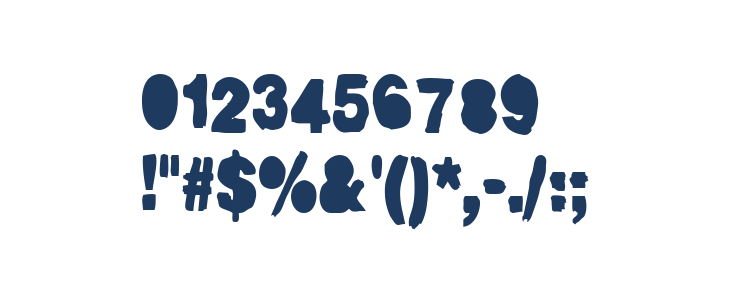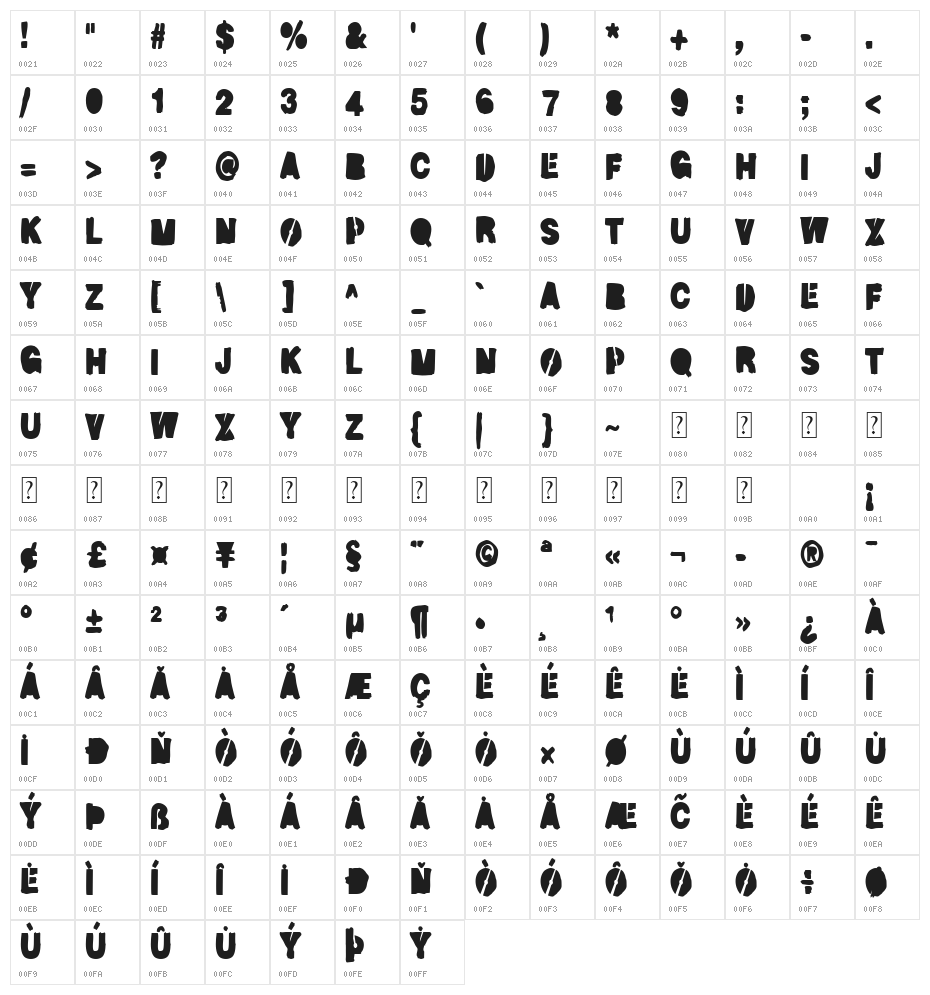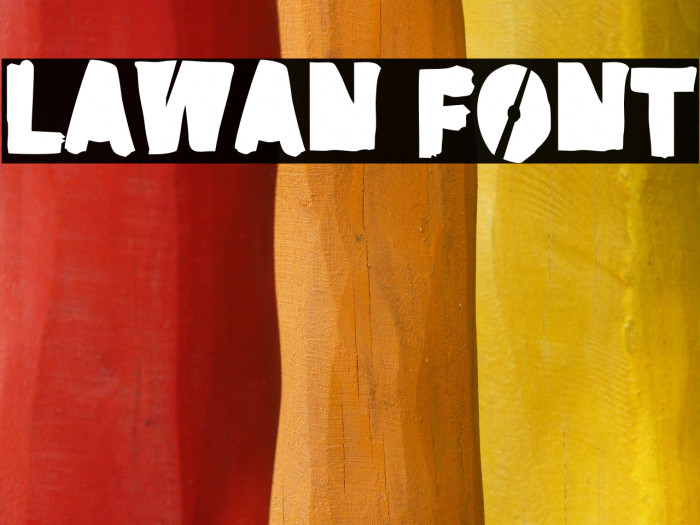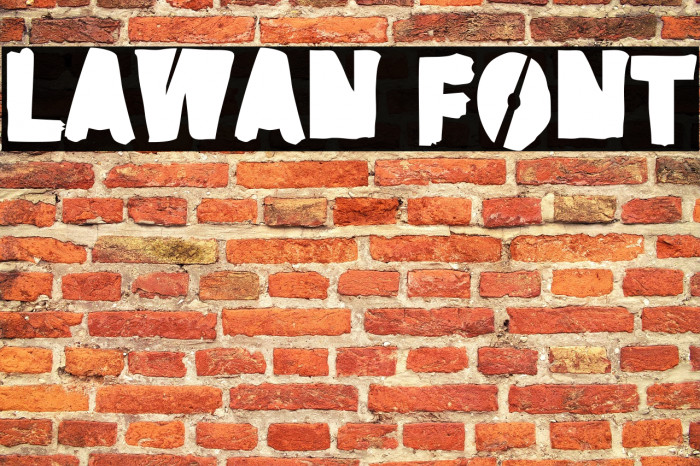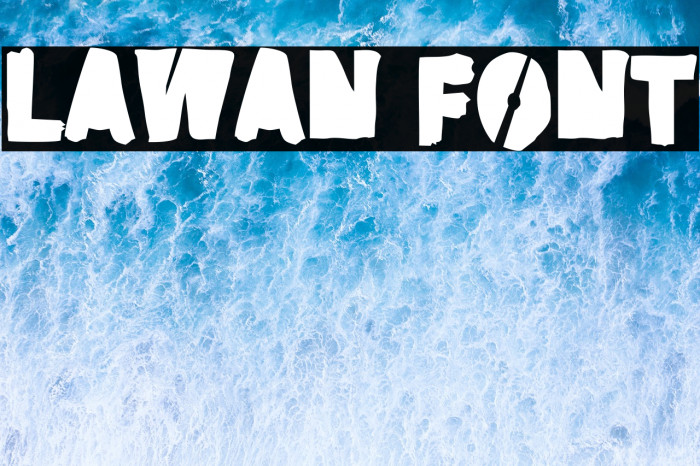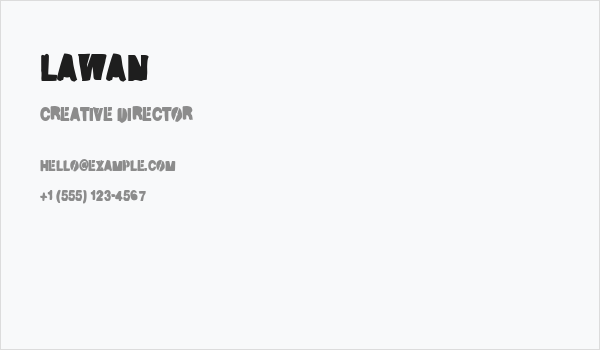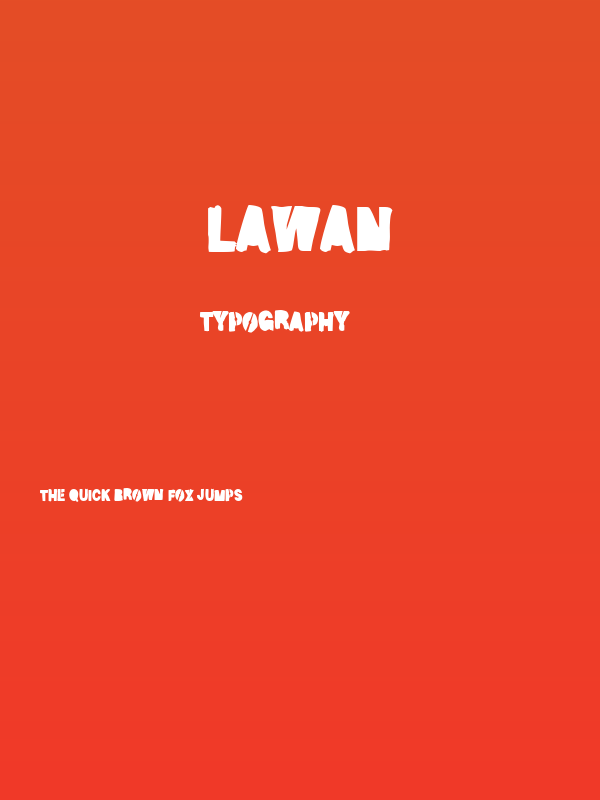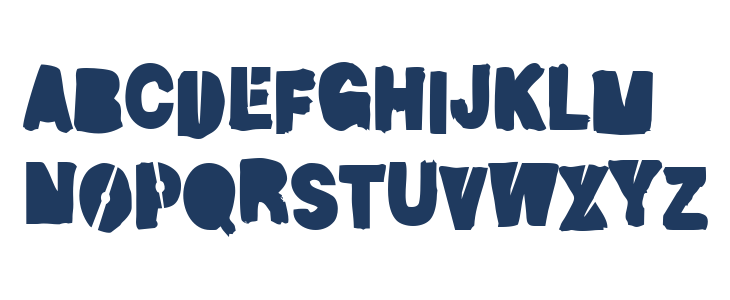
Lawan Font
Lawan Description
This font features a bold, playful design with a distinctly irregular and chunky appearance. The characters are heavily stylized, with exaggerated curves and angles that give it a unique, artistic flair. The boldness of the letters makes them stand out, while the uneven edges and varying thicknesses add a sense of movement and energy. This font is perfect for creative projects that require a touch of whimsy and boldness. The numbers and special characters maintain the same playful style, ensuring consistency across all text elements.
| Proposed Projects | Ideal for posters, children's books, playful branding, and creative advertising. |